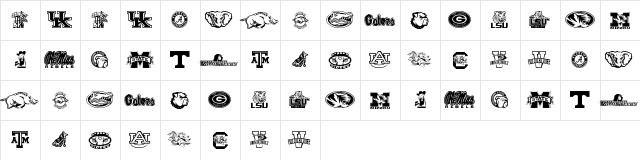
SEC Regular
Design Context for SEC Typeface
SEC is a composed and adaptable typeface that performs quietly and consistently across a wide range of design contexts.